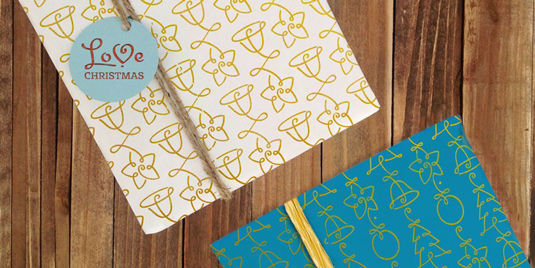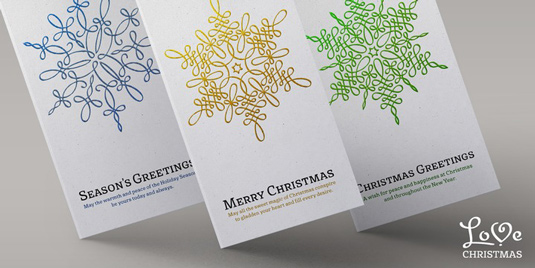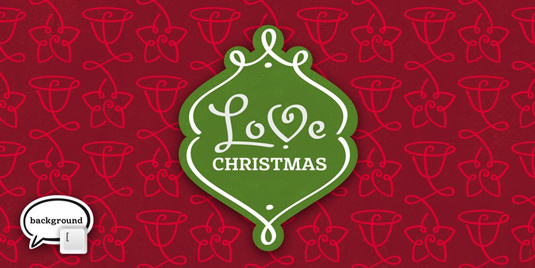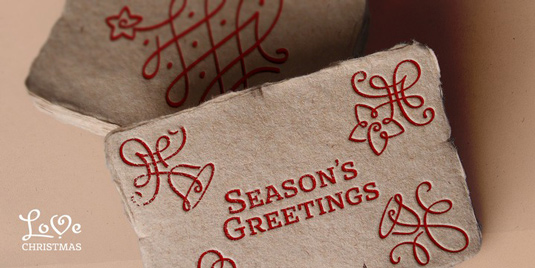
Font of the day: LoveChristmas
LoveChristmas by Vassil and Stella Katelieva
Looking for a font to accompany your Xmas designs? Then look no further than LoveChristmas by designers Vassil and Stella Katelieva. "Following the success of our Valentine inspired ornaments, Lovehearts, we decided to show our love for Christmas," Katelieva comments on MyFonts.
"With more than 170 hand drawn unique designs, LoveChristmas is the perfect choice for designing Christmas greeting cards and gift wraps as well as letter signatures and accessories."